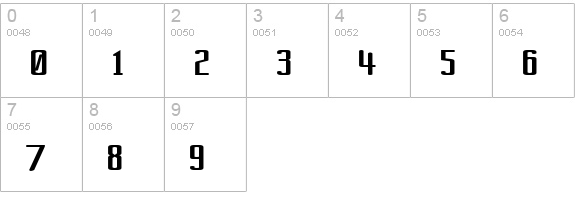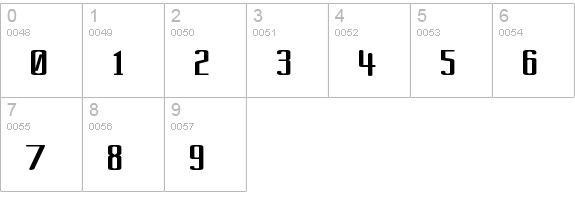
TR Ardour GM Font Details
TR Ardour GM font is a versatile and elegant typeface designed for a wide range of applications. With its clean lines and modern aesthetic, it is perfect for conveying a sense of sophistication and style in any design project. This font features a timeless appeal that makes it suitable for both print and digital media. What sets TR Ardour GM font apart is that it is available for free download at FontsMarket.com. This means that you can easily access and use this high-quality font in your projects without any cost. Whether you are working on a personal project or a commercial venture, TR Ardour GM font offers a professional touch that will elevate your design work to the next level. The sleek and polished appearance of TR Ardour GM font makes it an ideal choice for branding, advertising, editorial design, and more. Its versatility and readability ensure that your message will come across clearly and effectively to your audience. Download TR Ardour GM font today and add a touch of refinement to your designs.